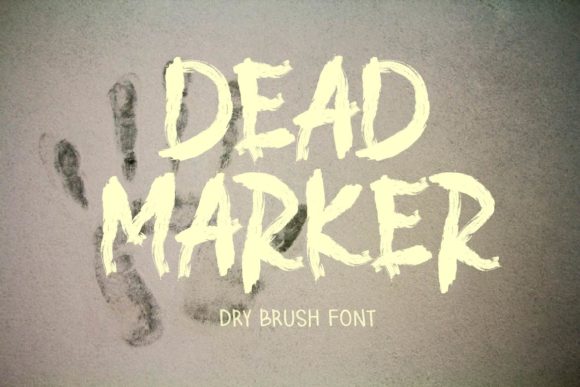
Step into the world of Dead Marker, a display font that dances on the edge of quirkiness and versatility. Let your designs take center stage with this captivating font, ready to leave a lasting impression.
A stroke of genius from the creative minds at aminmariostudio, Dead Marker effortlessly blends unconventional shapes with impeccable readability. Its bold, sharp edges command attention, while the playful letterforms add a touch of lightheartedness.
Unleash your creativity with Dead Marker's boundless versatility. Whether you're crafting logos, posters, social media graphics, or eye-catching headlines, this font shines in any setting. Its distinct character brings life to your designs, ensuring they stand out from the crowd.
With Dead Marker, you'll discover a font that transcends mere aesthetics. It's a tool that fuels your imagination, allowing you to weave tales and convey emotions through typography. Its expressive nature captivates audiences, drawing them into your designs and leaving them spellbound.